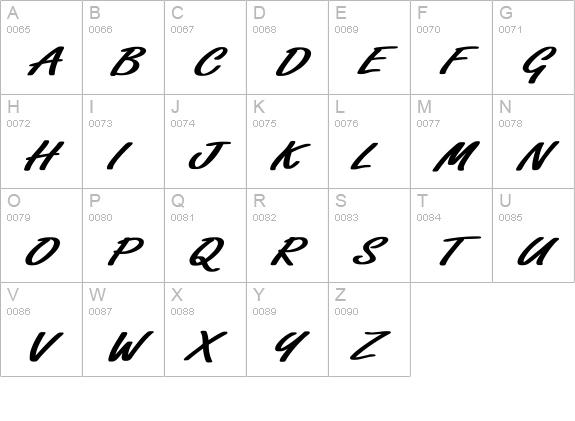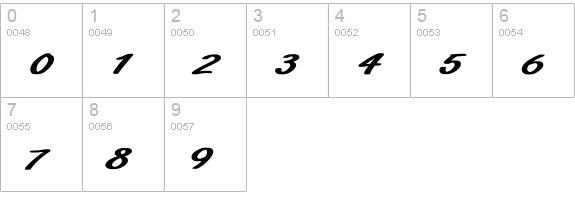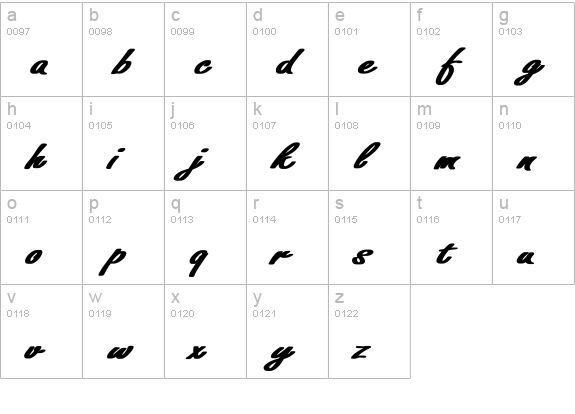
Freeport-Normal Ex Bold Font Details
Freeport-Normal Ex Bold is the standard, neutral variant in the Freeport typeface family \xE2\x80\x94 well suited to general body text, paragraphs, and standard typographic work.
Freeport-Normal Ex Bold font is a versatile and modern typeface that exudes confidence and sophistication. Its bold and strong design makes a bold statement in any design project, while still maintaining a sense of elegance. This font is perfect for headlines, titles, branding, and more. The best part about Freeport-Normal Ex Bold font is that it is completely free to download at FontsMarket.com. So you can easily add this stylish and impactful font to your collection without any cost. Don't miss out on the opportunity to enhance your designs with this exceptional typeface. Download Freeport-Normal Ex Bold font now and take your projects to the next level!